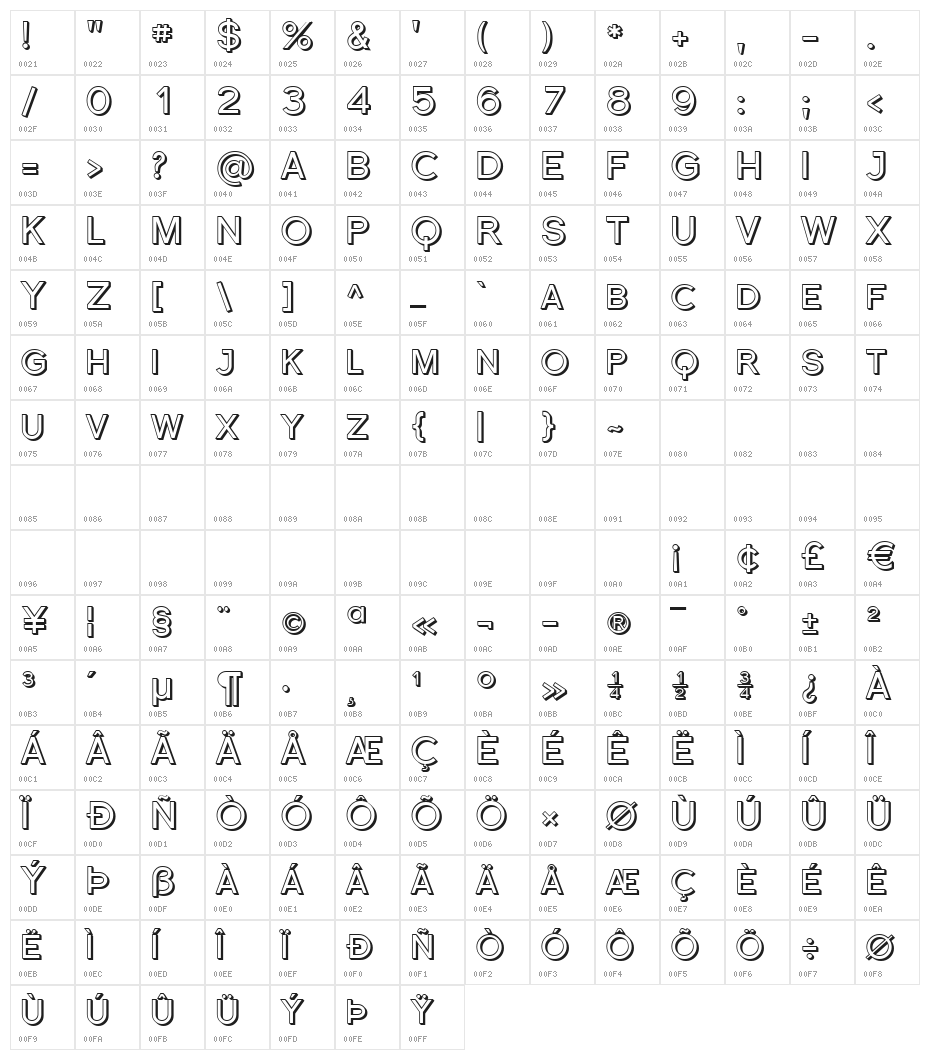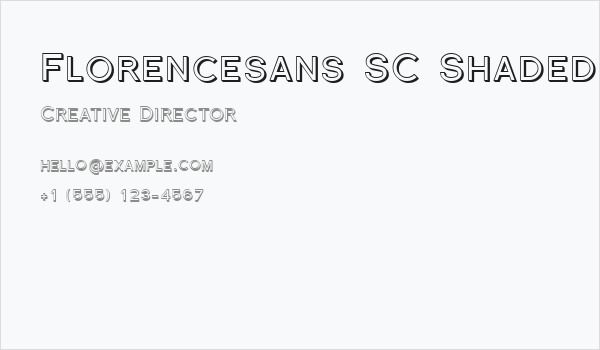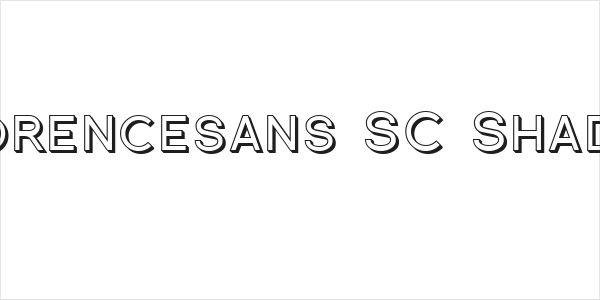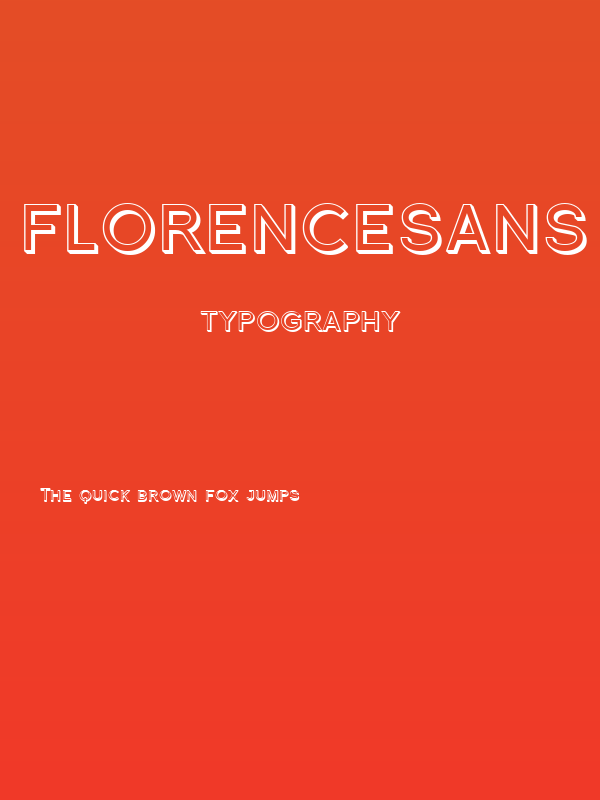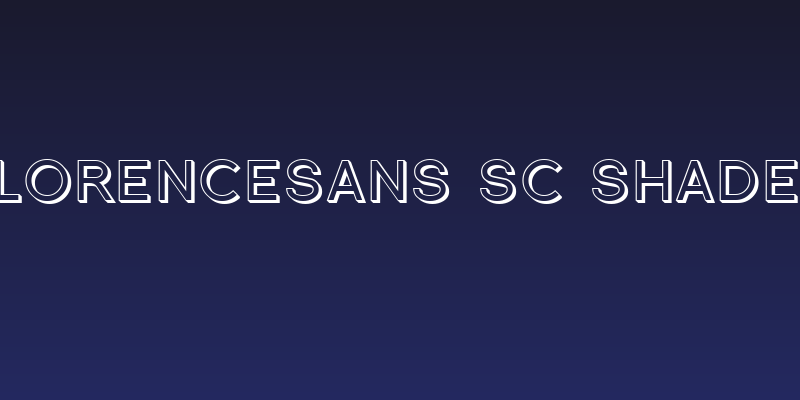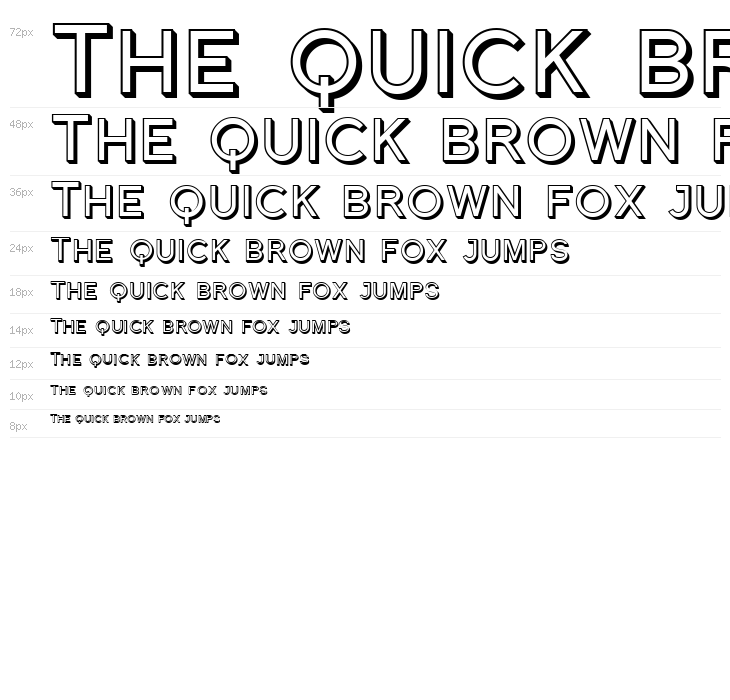
Florencesans SC Shaded Font
Florencesans SC Shaded Description
This font features a bold, geometric sans-serif style with a distinct shaded effect that gives each character a three-dimensional appearance. The uppercase and lowercase letters maintain a consistent width, contributing to a uniform and balanced look. The numerals and special characters are designed to match the boldness of the letters, ensuring a cohesive visual presentation. The shading adds depth and interest, making it suitable for eye-catching designs. The clean lines and modern aesthetic make it versatile for various applications.
| Proposed Projects | Ideal for branding, posters, headlines, and any design project requiring a modern and impactful typeface. |